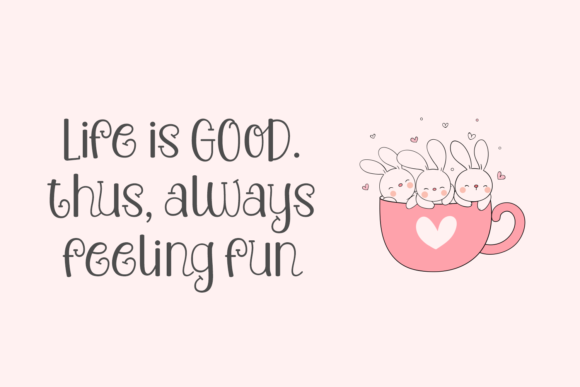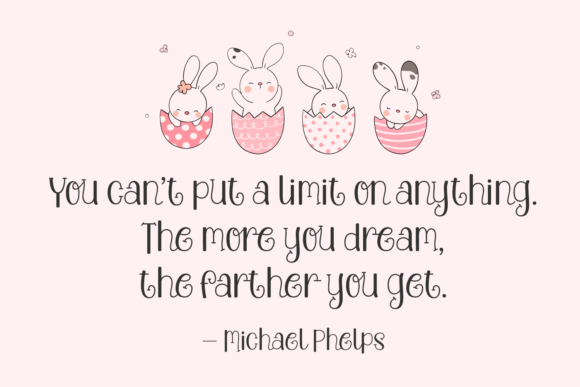
Introduction to Marchone Font
Have you ever stumbled upon a design project that sparks your creativity and leaves you wanting more? For many designers, that moment comes when they discover the perfect font to bring their vision to life. For those in search of a high-quality, whimsical font that adds a touch of elegance, look no further than the Marchone Font.
This versatile script font is designed to add a quirky touch to any creative project, whether it’s a DIY craft, a graphic design, or even a simple blog post. With its playful and whimsical feel, Marchone Font is guaranteed to elevate your design to the next level.
About the Marchone Font
With a wealth of special features, including alternate glyphs and ligatures, the Marchone Font is a valuable resource for designers seeking to add a unique touch to their work. Plus, with PUA encoding, accessing the magical glyphs and swashes is as easy as a free download from a reliable design resource.
Key Features of Marchone Font
- High-quality design: Marchone Font offers a unique blend of modern and elegant styles, making it perfect for creative projects.
- Large character set: Marchone Font includes a wide range of characters, including Latin, Cyrillic, and Greek alphabets, making it suitable for various languages and projects.
Honest Review: Marchone Font
As a designer, I’m always on the lookout for high-quality fonts to elevate my creative projects. I recently stumbled upon the Marchone Font, and I must say, it’s a great addition to my design resource arsenal.
- Unique and elegant design aesthetic that adds a touch of sophistication to any project
- Transparent background, making it easy to layer over images and other design elements
- Wide range of applications, from branding and marketing materials to digital products and print materials
- Only available in a limited range of font styles and weights, which may limit its versatility
- May not be suitable for use in small text sizes due to its elegant design aesthetic
Overall, I’m impressed with the Marchone Font’s high-quality design and transparent background. While it may have some limitations, it’s a great option for designers looking for a unique and elegant font to add to their creative projects. I’d definitely recommend it as a design resource to my fellow designers.